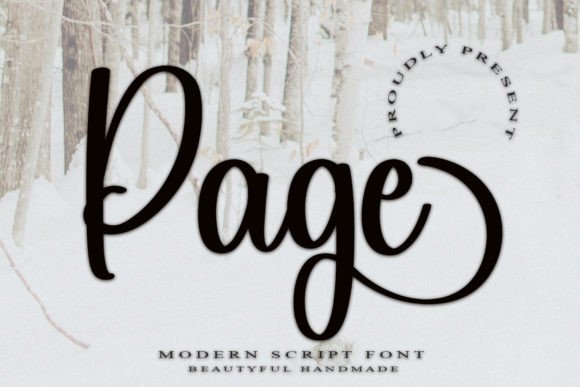
Step into the world of Page Font, a script font family that exudes elegance and sophistication. With its delicate strokes and graceful curves, Page Font is the perfect choice for adding a touch of charm and personality to your creative projects. Whether you're designing a CV, crafting a heartfelt letter, or creating eye-catching social media posts, Page Font will elevate your designs to new heights.
Immerse yourself in the beauty of Page Font's carefully crafted characters, each one a testament to the art of digital calligraphy. The font's natural flow and subtle variations add a touch of authenticity and warmth to your projects, making them truly stand out from the crowd.
Unleash your creativity with Page Font's versatility. Its wide range of weights and styles allows you to experiment and create designs that are both visually appealing and impactful. From delicate hairlines to bold and striking strokes, Page Font offers endless possibilities to match your unique style and vision.
Trust Page Font to make a lasting impression. Its timeless design transcends trends and fads, ensuring that your projects remain relevant and captivating for years to come. Let Page Font be your partner in creating designs that resonate with your audience and leave a lasting impact.
Don't settle for ordinary fonts. Embrace the beauty and elegance of Page Font today. Let your creativity soar and experience the joy of creating designs that truly shine.